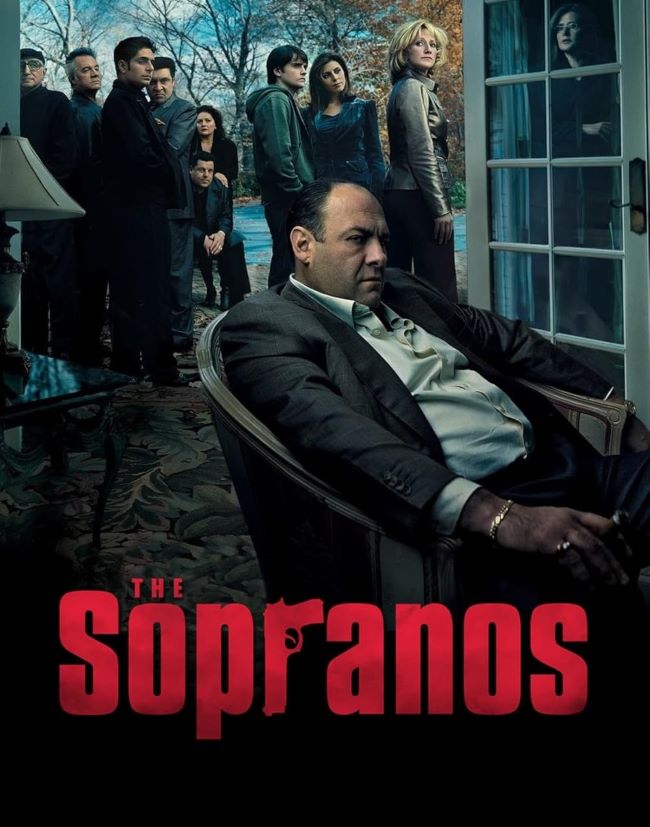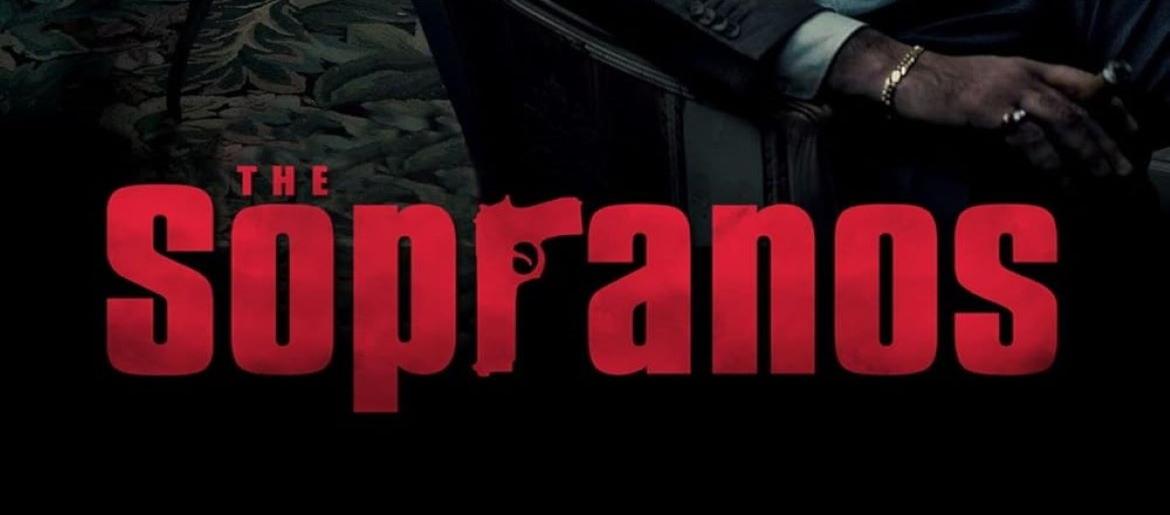
The Sopranos Font
The Sopranos Font perfectly captures the gritty, authentic energy of HBO’s iconic drama series The Sopranos. Its bold, condensed letterforms reflect the street-smart sophistication of Tony Soprano and the show’s New Jersey roots, balancing toughness with elegance.
The slightly weathered style adds a lived-in quality, mirroring the series’ realistic portrayal of mob life. This font became integral to the show’s opening sequence and has influenced crime drama branding for decades. Designers and fans can also explore more free fonts for personal and creative projects.